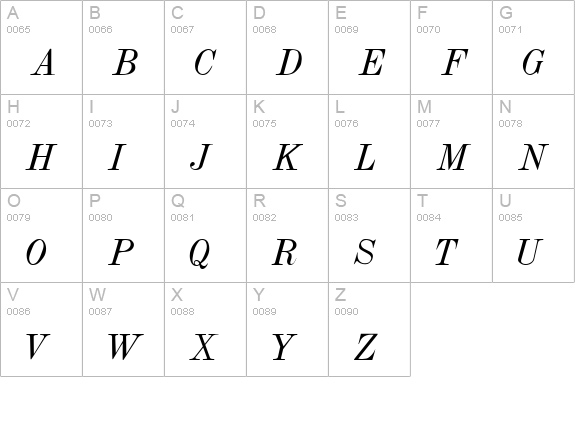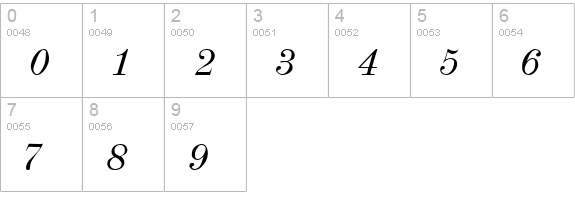
Dubiel Italic Font Details
Dubiel Italic is a distinctive, italic variant in the Dubiel typeface family \xE2\x80\x94 well suited to design and typography projects.
Dubiel Italic is a stunning and elegant font that effortlessly blends classic sophistication with a modern twist. Its delicate and flowing curves give it a sense of grace and fluidity, making it perfect for projects that require a touch of elegance and refinement. This font is characterized by its unique and stylish italic design, which adds a touch of sophistication and individuality to any text. Whether used for invitations, logos, branding, or other creative projects, Dubiel Italic is sure to make a statement and leave a lasting impression. What makes Dubiel Italic even more appealing is the fact that it is free. Yes, you read that right! This remarkable font is freely available to download at FontsMarket.com. This means that you can easily access and use this font for all your personal and commercial projects without any cost. So why wait? With Dubiel Italic, you can add a touch of elegance and modernity to your designs while enjoying the freedom of using a high-quality font without breaking the bank. Download Dubiel Italic today from FontsMarket.com and elevate your creative projects to new heights.